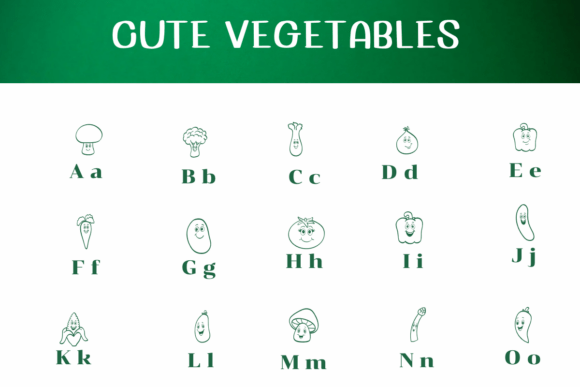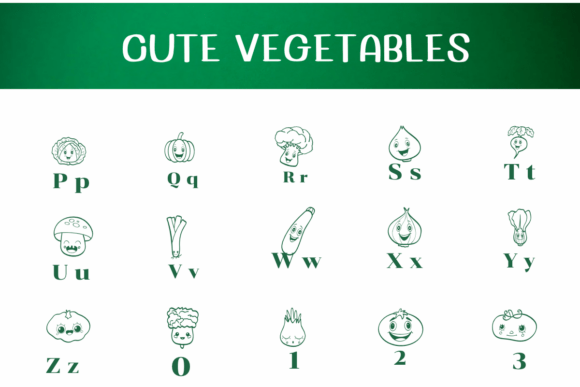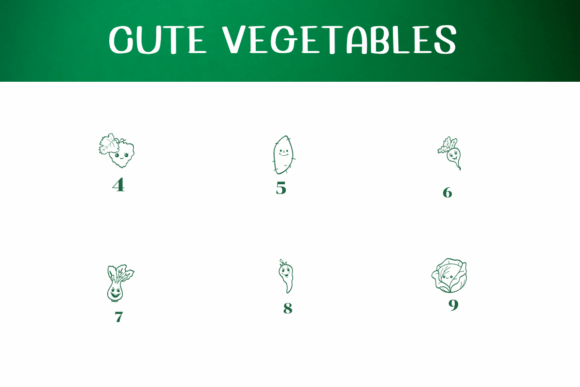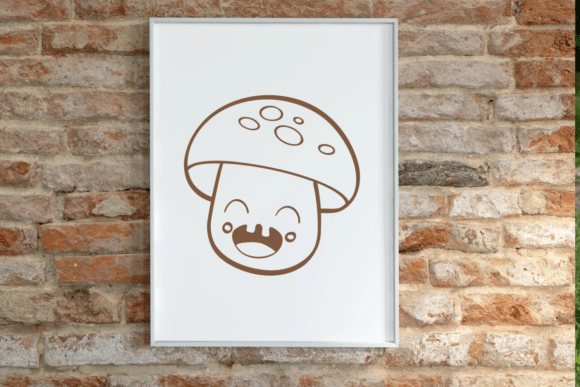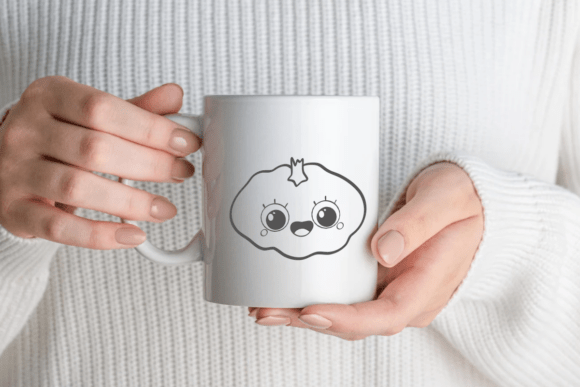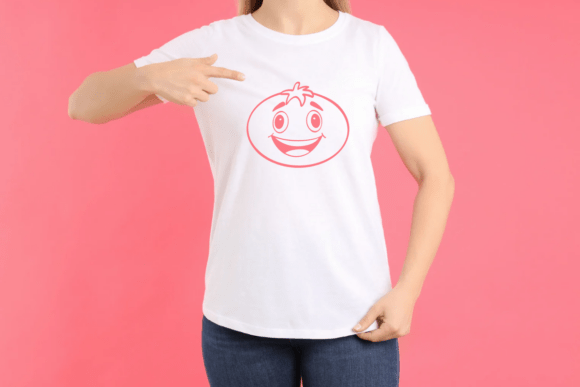
Introduction to Cute Vegetables Font
Cute Vegetables is a charming dingbats font packed with hand-drawn veggie characters full of personality.
From smiling carrots to playful peppers and cheerful mushrooms, this set is perfect for adding a fun, healthy twist to your creative projects Great for kids’ worksheets, recipe cards, farm signage, or playful branding.
Key Features of Cute Vegetables Font
Why Choose Cute Vegetables Font?
Cute Vegetables Font offers exceptional quality and versatility, making it a valuable addition to your design toolkit. Whether you’re creating for personal projects or commercial use, Cute Vegetables Font delivers professional results.